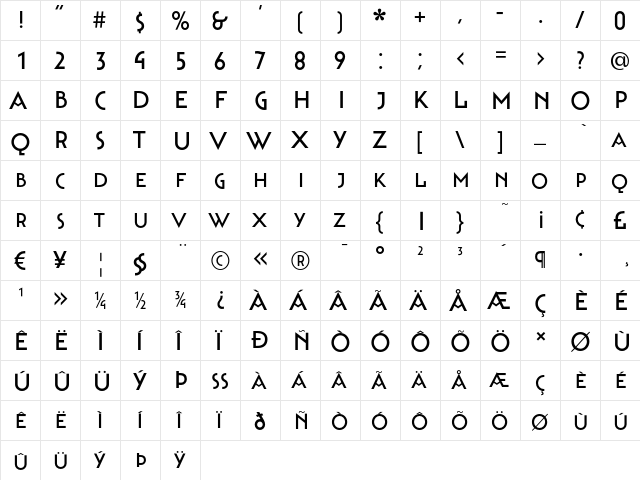
Bahnhof Regular Regular
| Foundry | Frantisek Storm, stormtype.com |
Design Context for Bahnhof Regular Typeface
Bahnhof Regular is a composed and adaptable typeface that performs quietly and consistently across a wide range of design contexts.